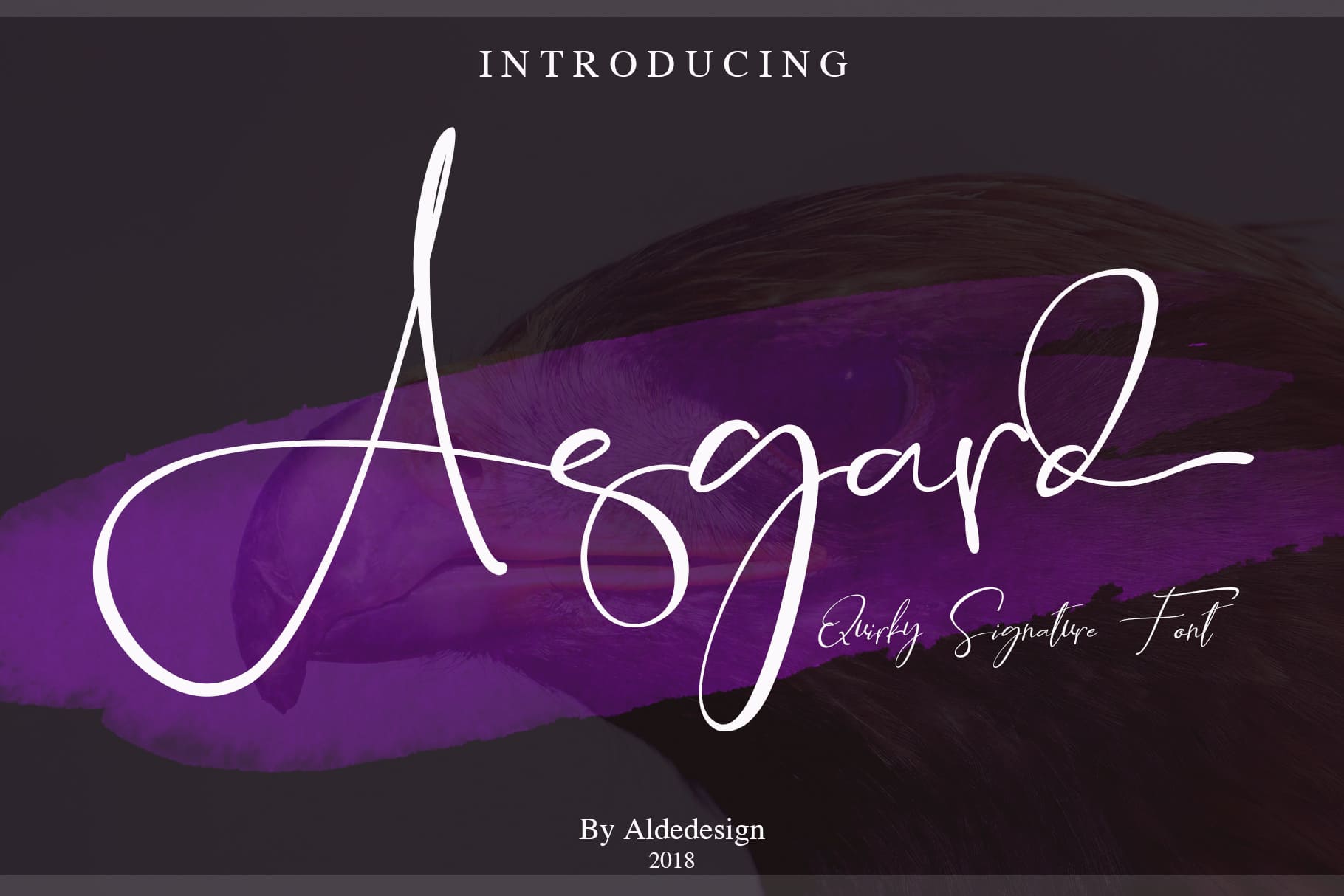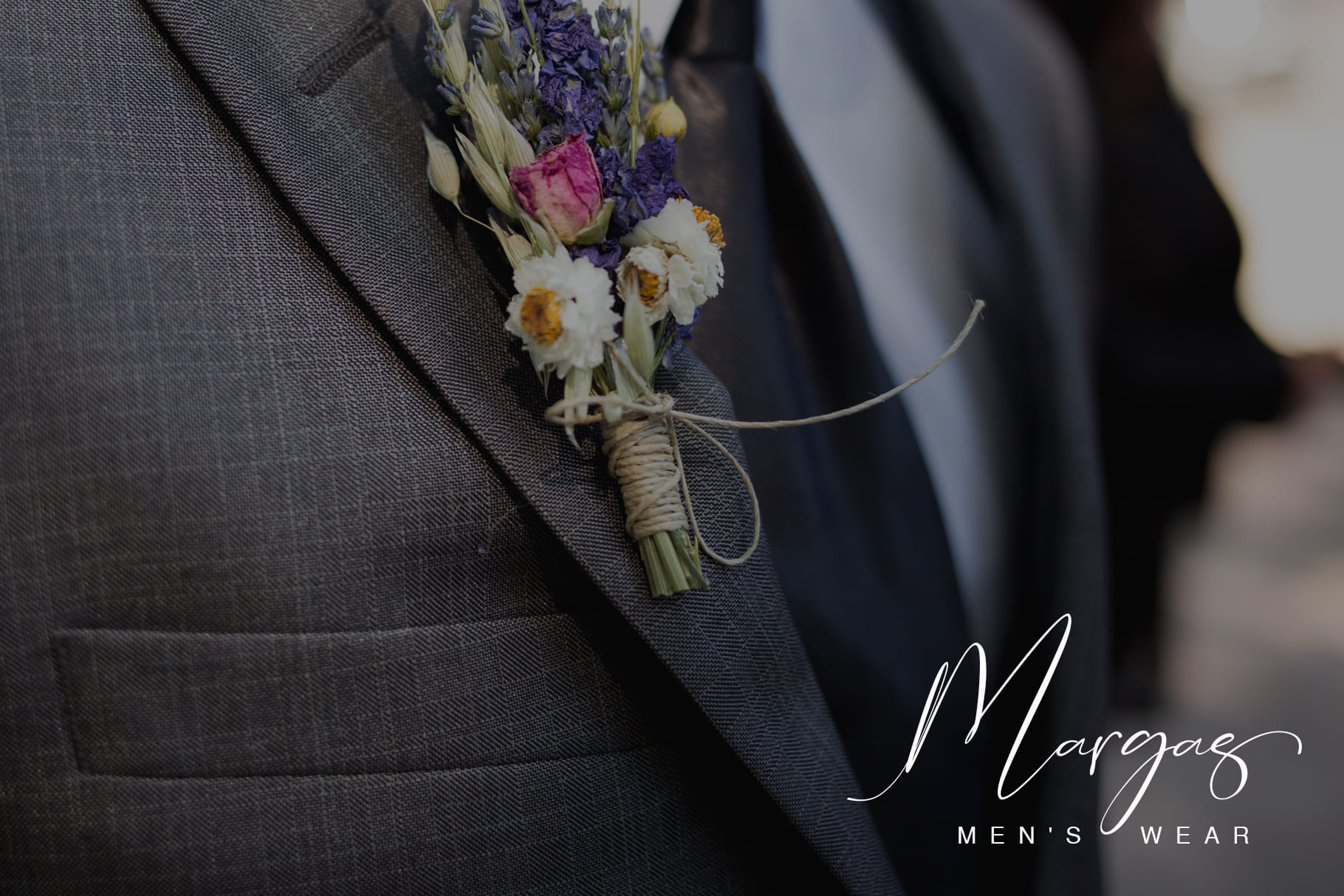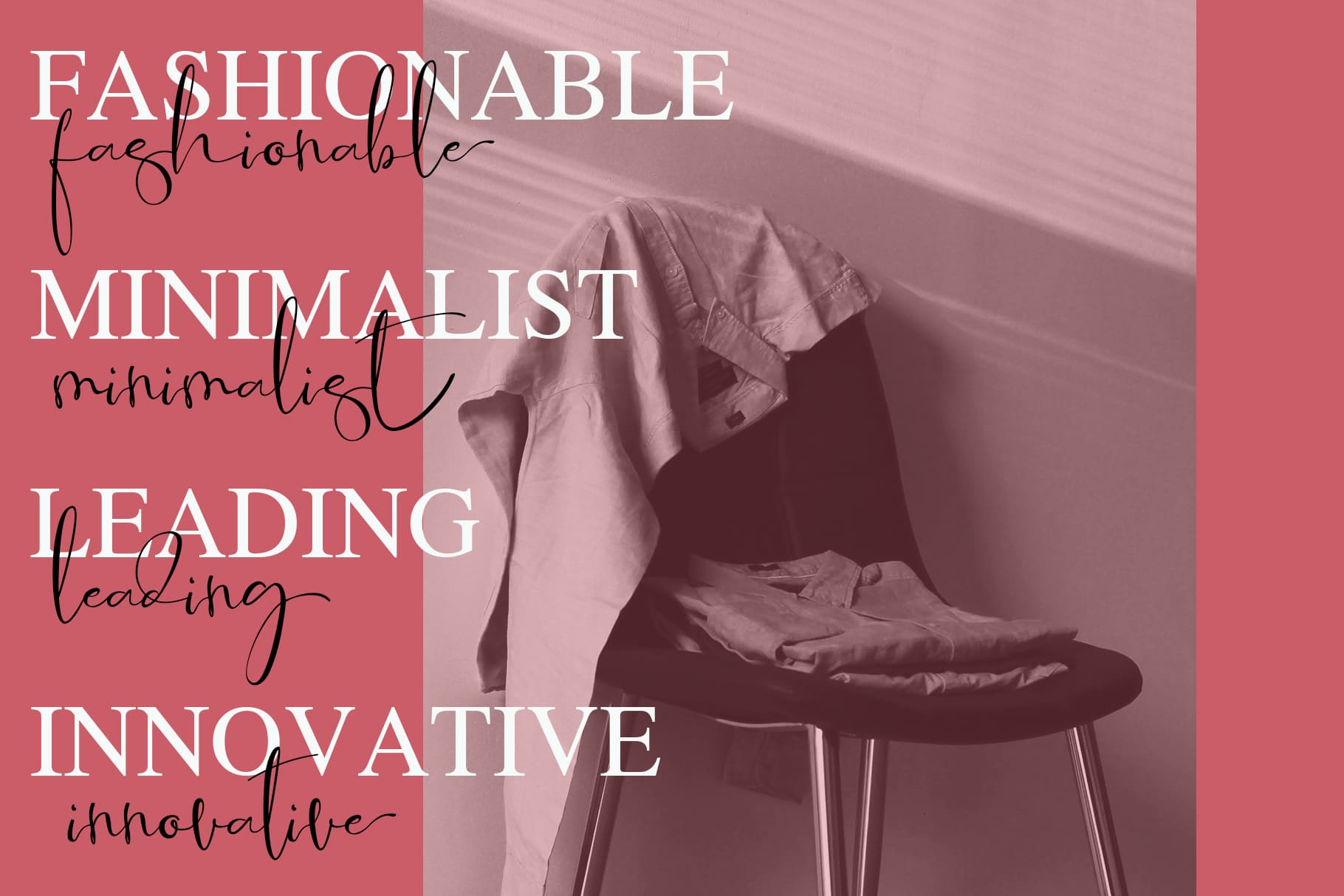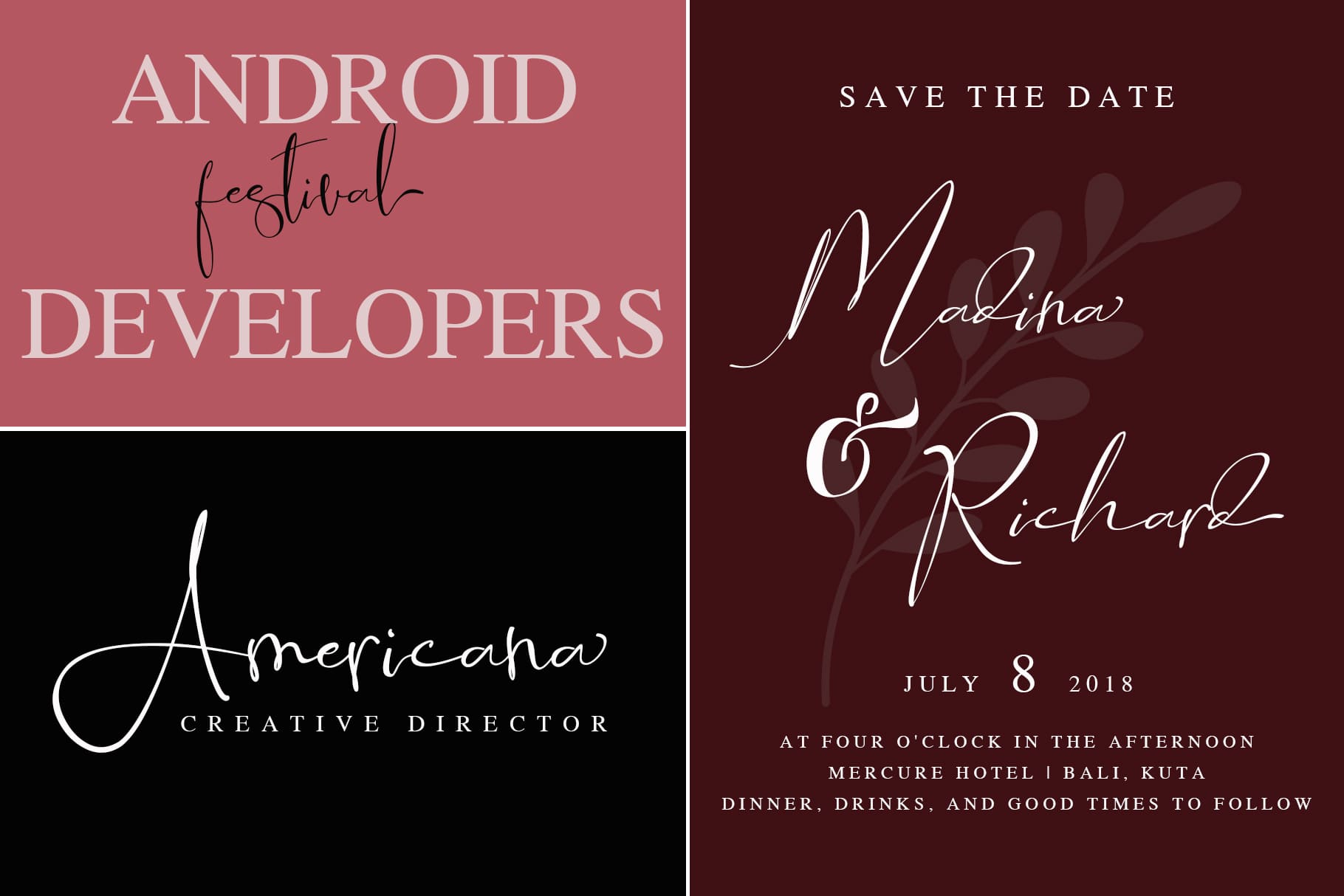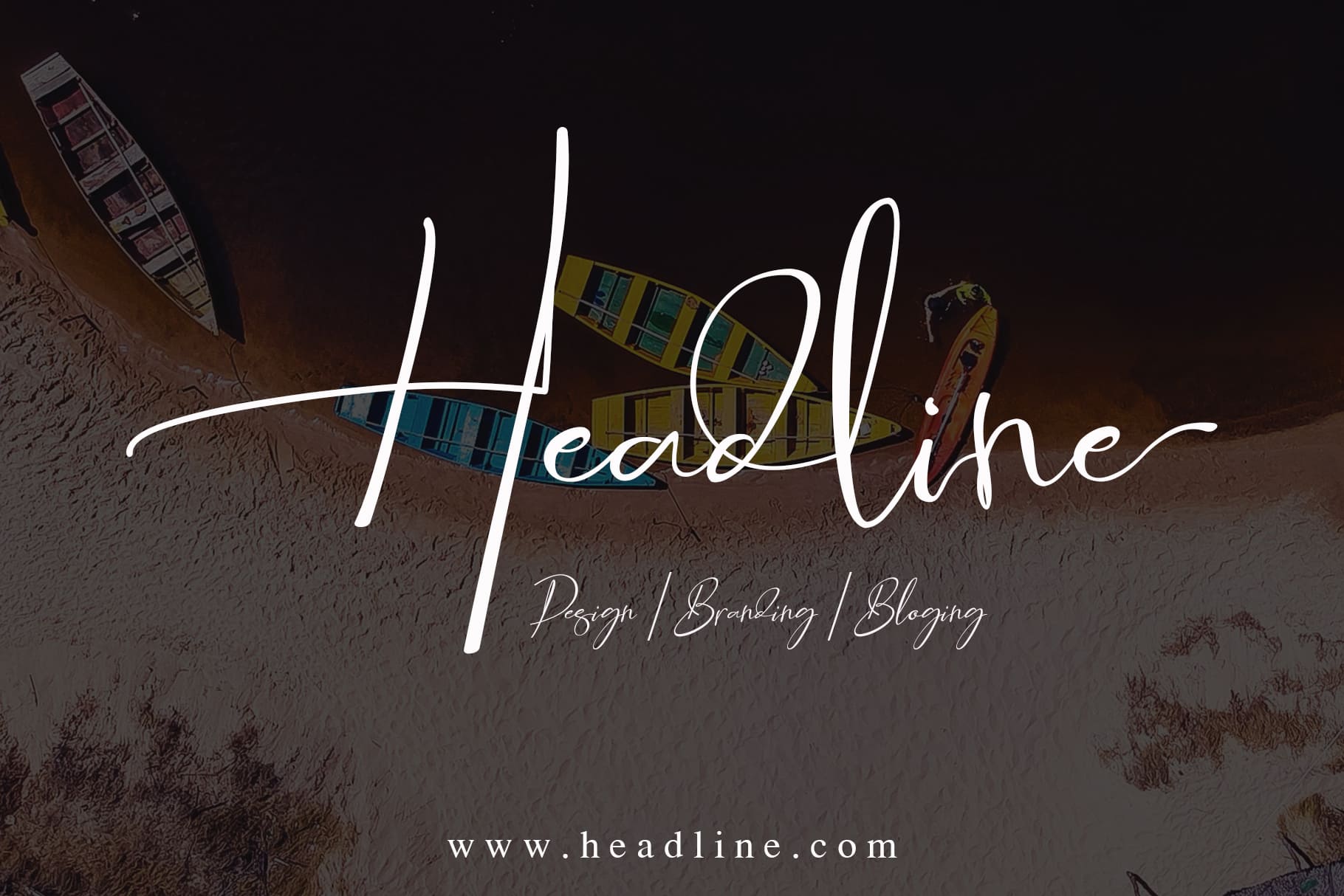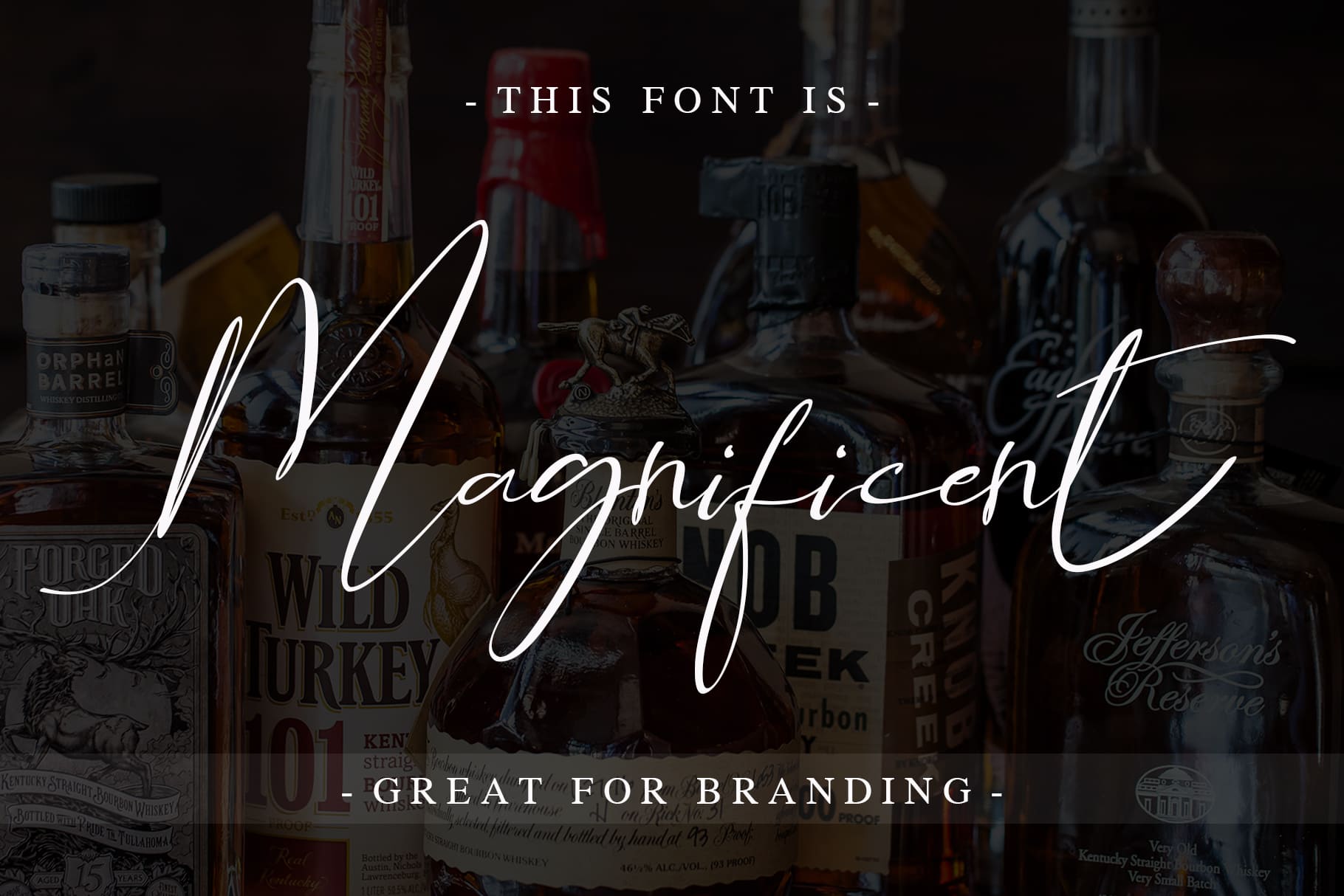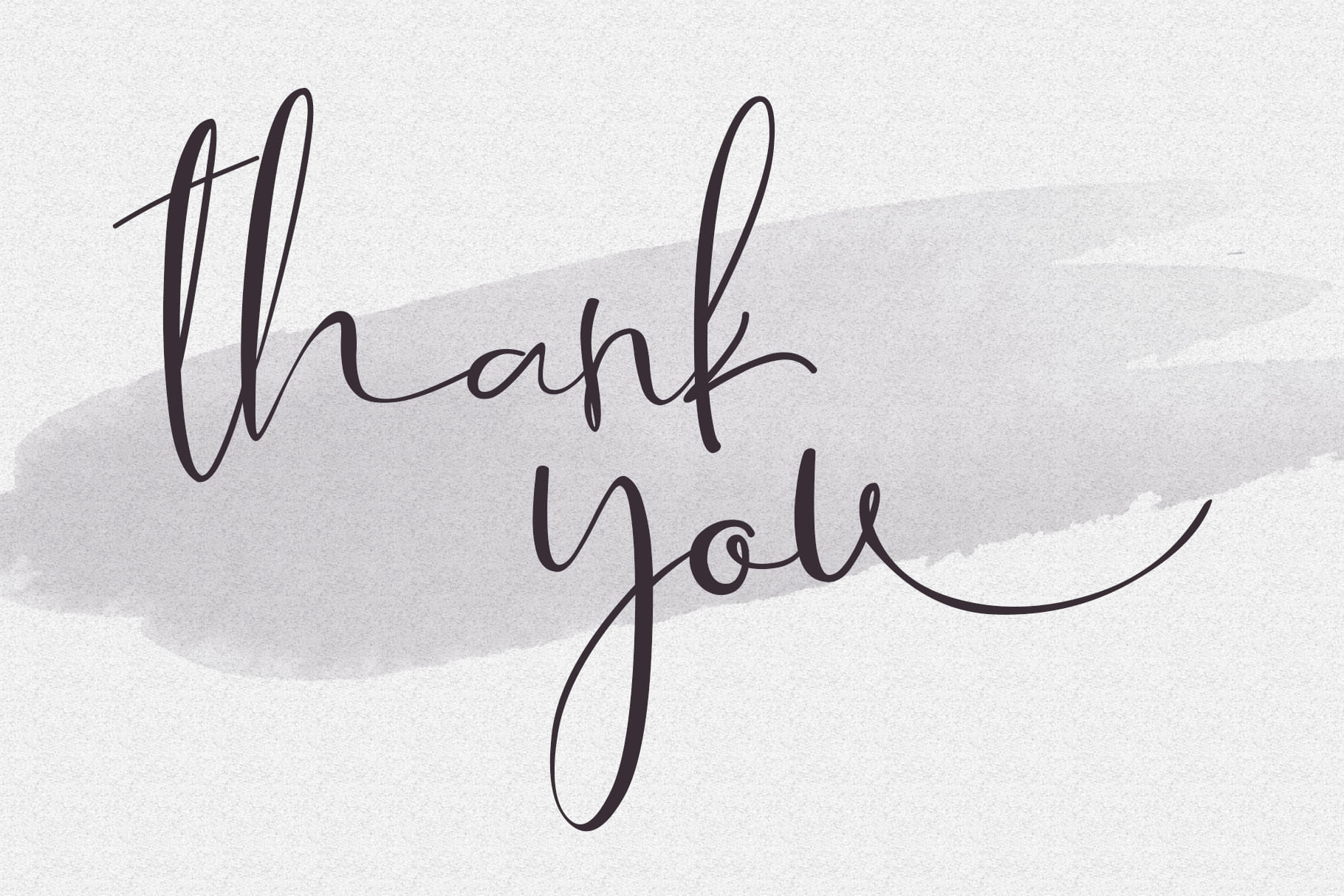
Asgard Family (2 fonts)
From AldeDesign
About AldeDesign
AldeDesign was founded by Alde Joox in Indonesia, Yogyakarta. AldeDesign specializes in affordable scripts from very casual to very elegant. The design group is obsessed with product quality, beauty, and application. The fonts are perfectly suited for headlines, invitations, fashion, and packaging design.